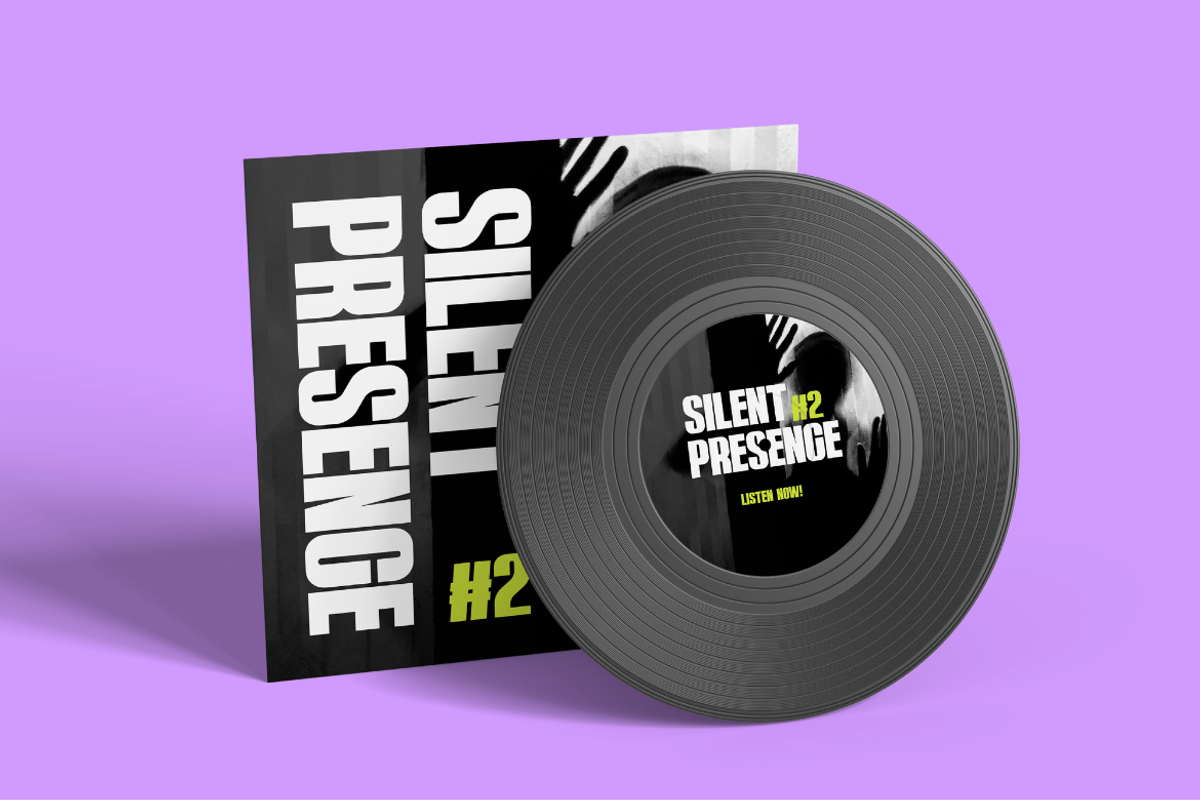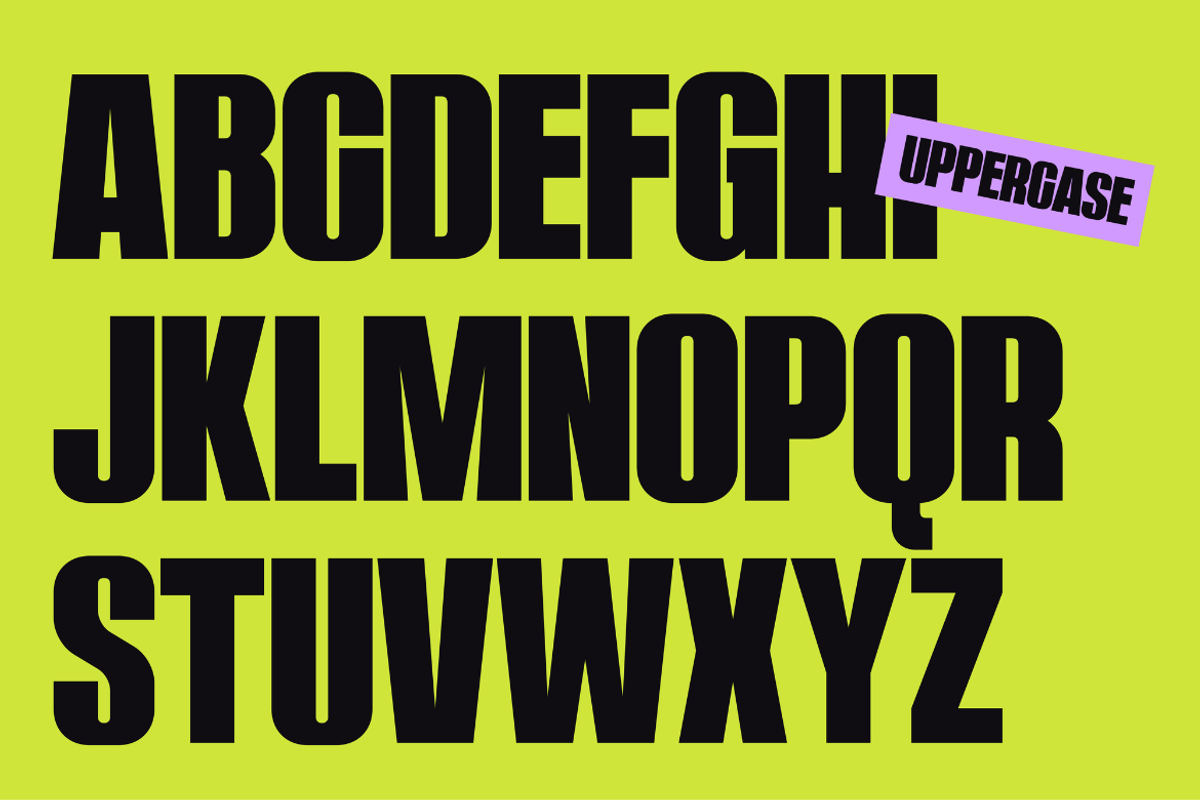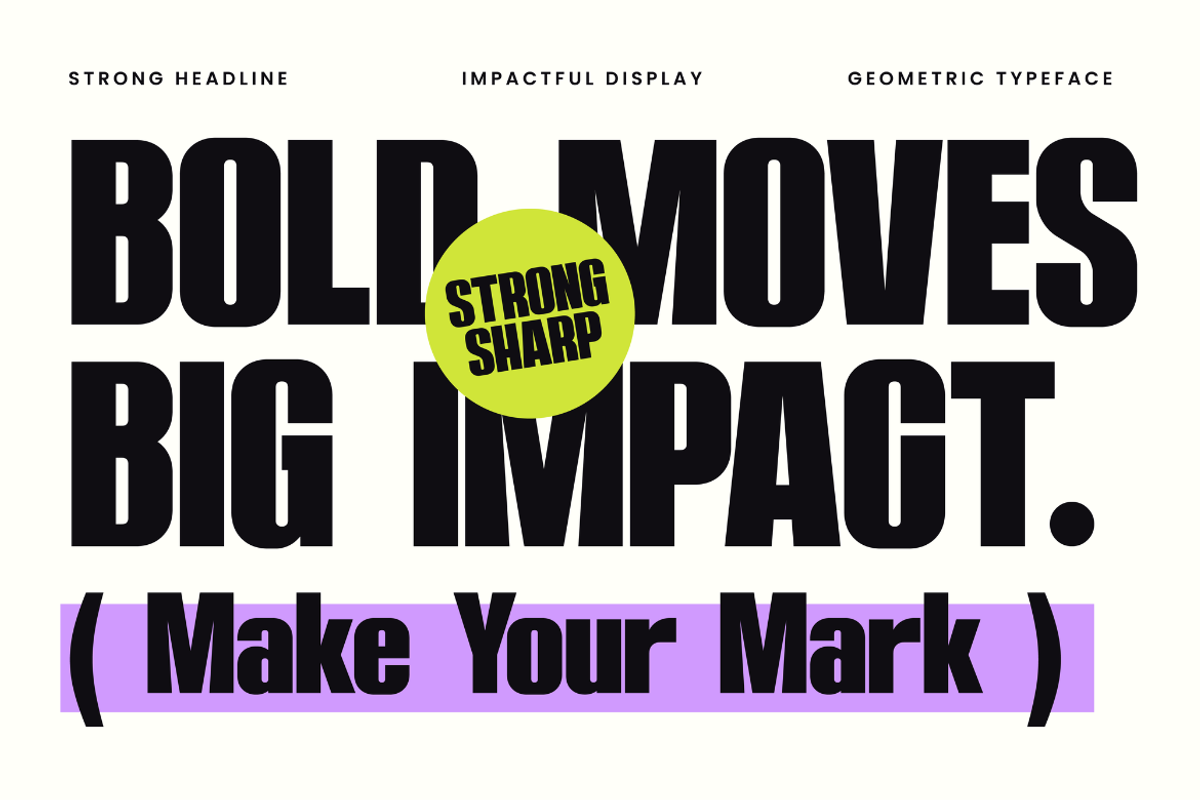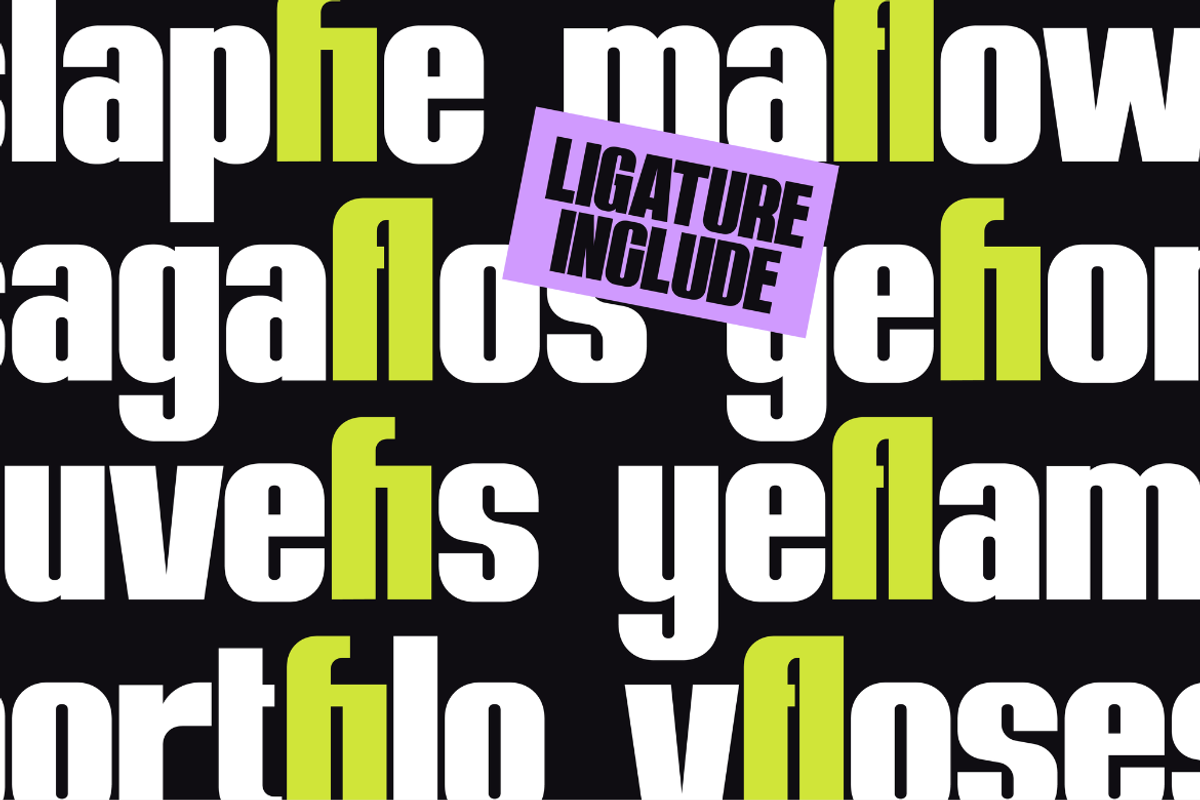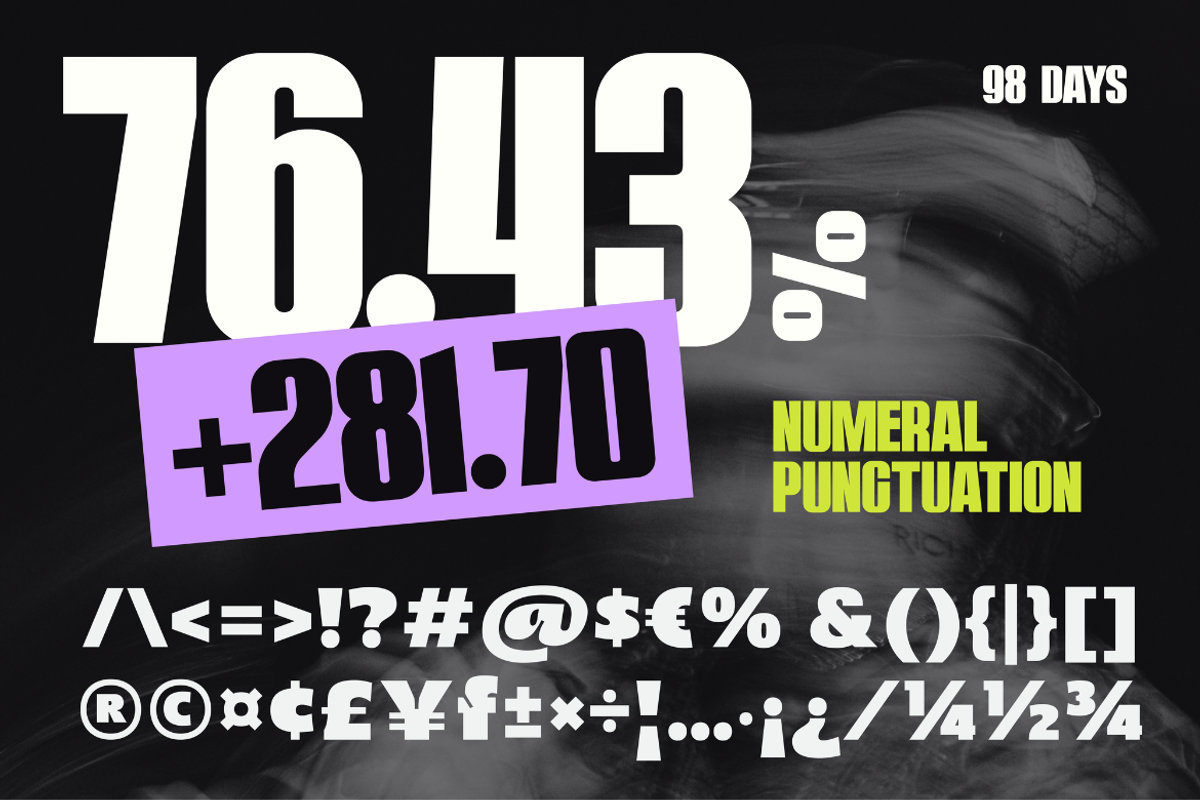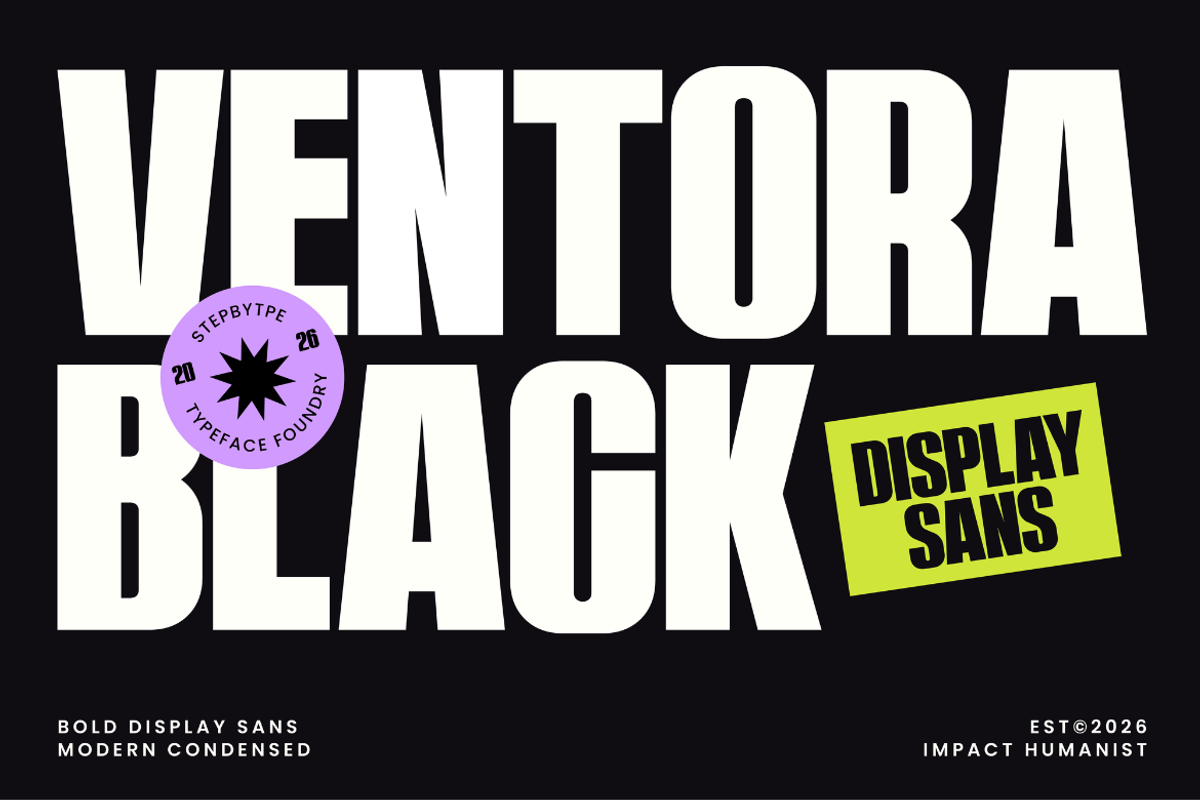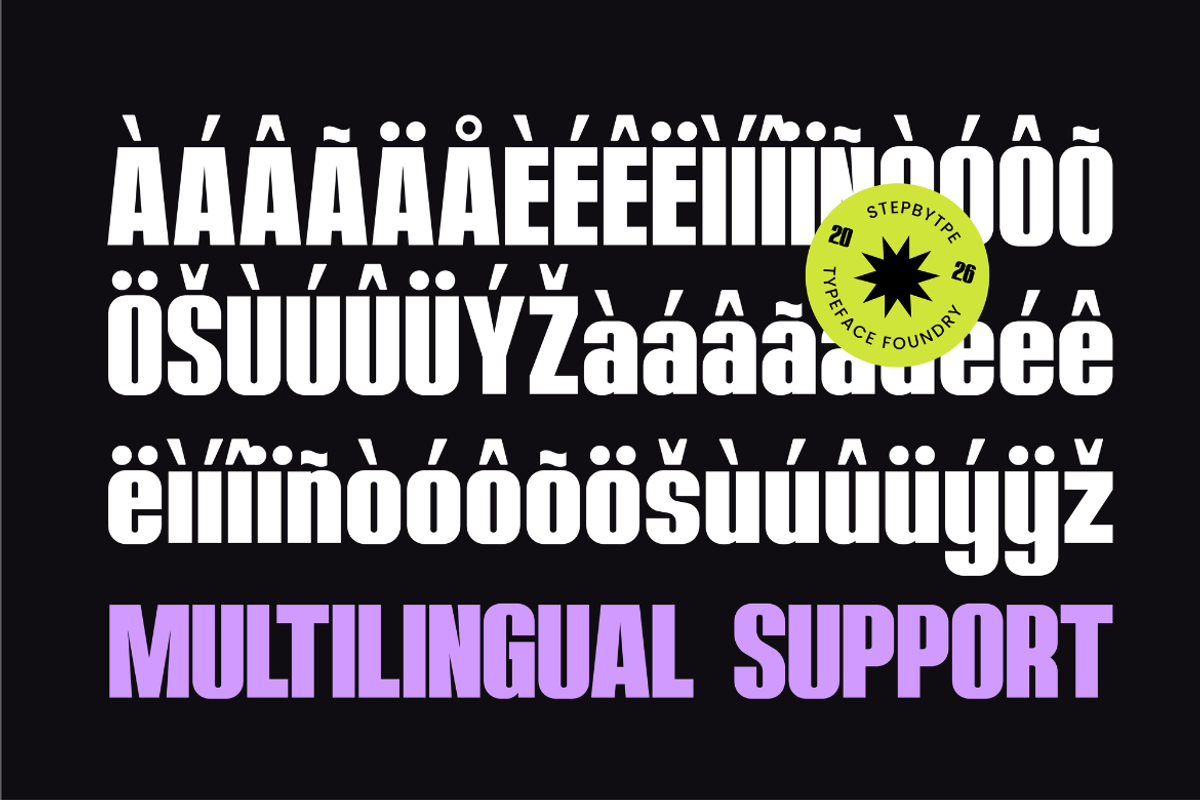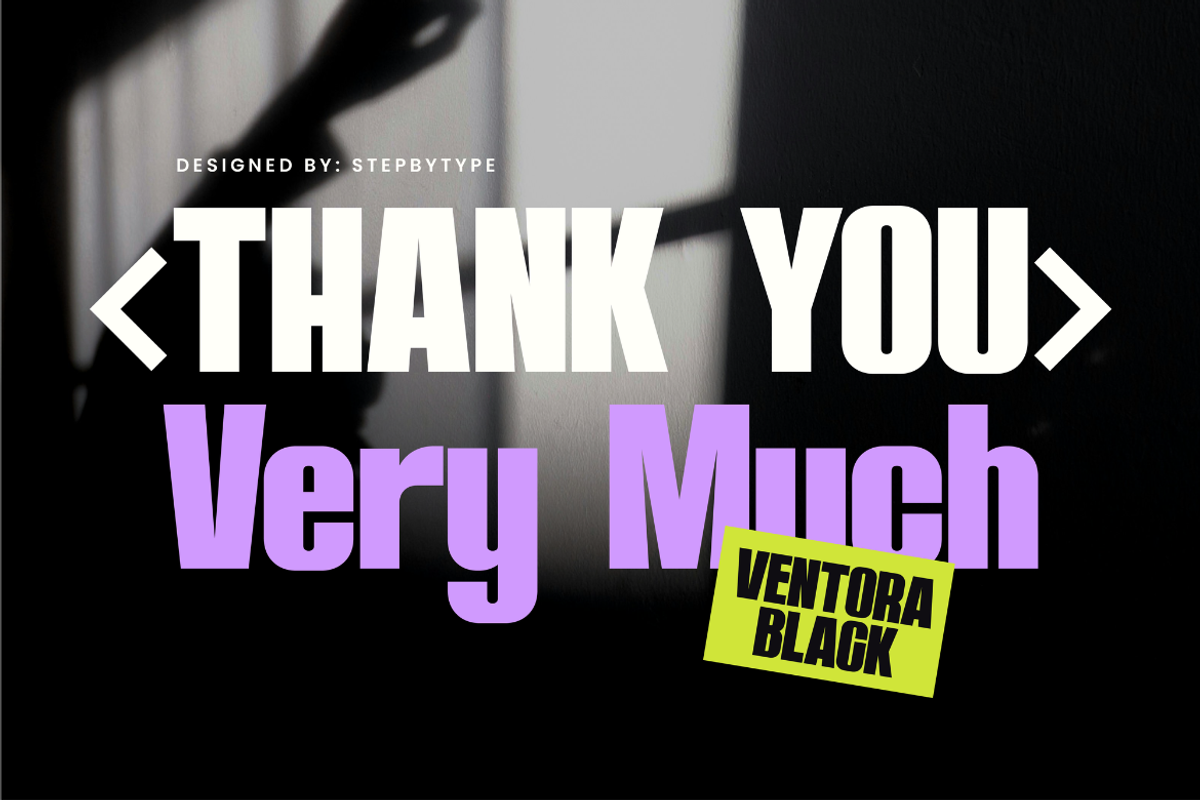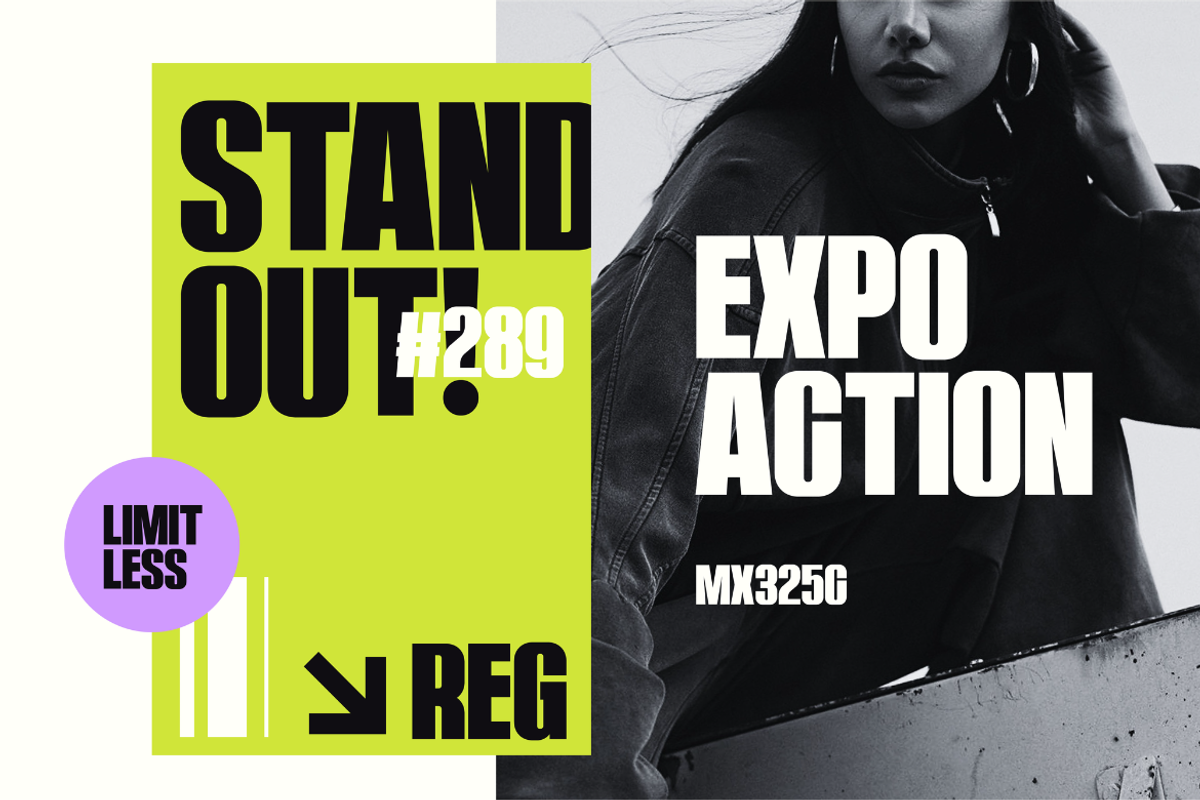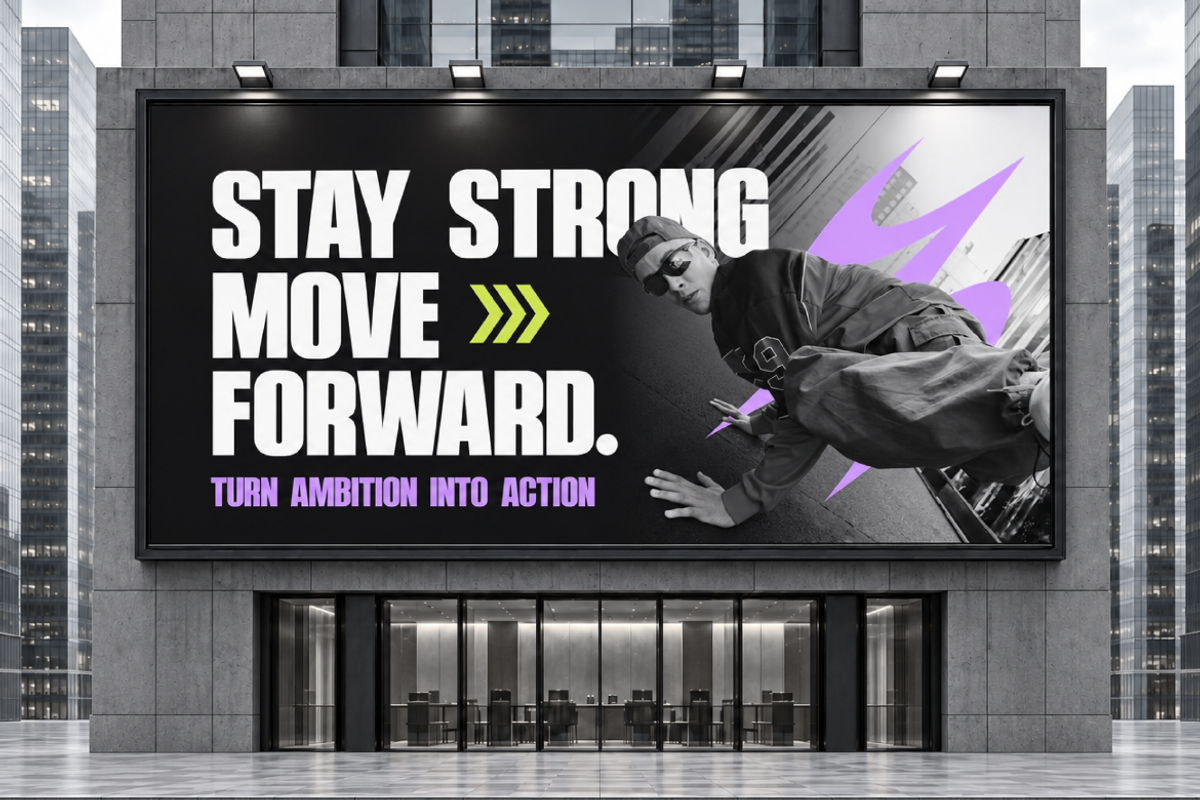
Ventora Black
Ventora Black is a bold condensed display sans-serif typeface designed with a strong visual impact, tall proportions, and powerful headline presence. The font combines geometric structure with a modern industrial feel, making it suitable for attention-grabbing designs such as posters, branding, advertising, and editorial layouts.